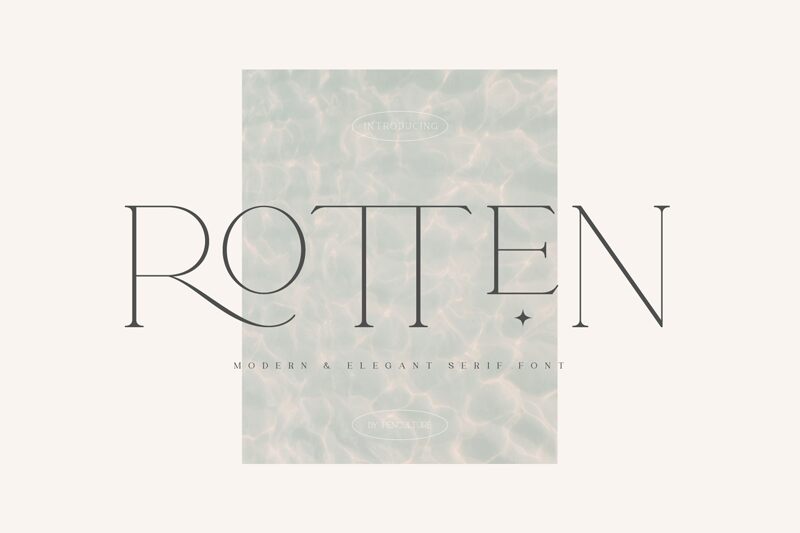
Rotten
Rotten is a thin serif font designed by Pen Culture. It features a contemporary look with sharp, precise details that make it an excellent choice for a variety of creative projects. From logo designs to posters, book covers and more, the stylishness of Rotten stands out and makes an impact. Its unique style gives your work character and depth. Give your design projects an edge with this modern yet timeless font!
Rotten designed by Revo Farisky from Pen Culture in 2021